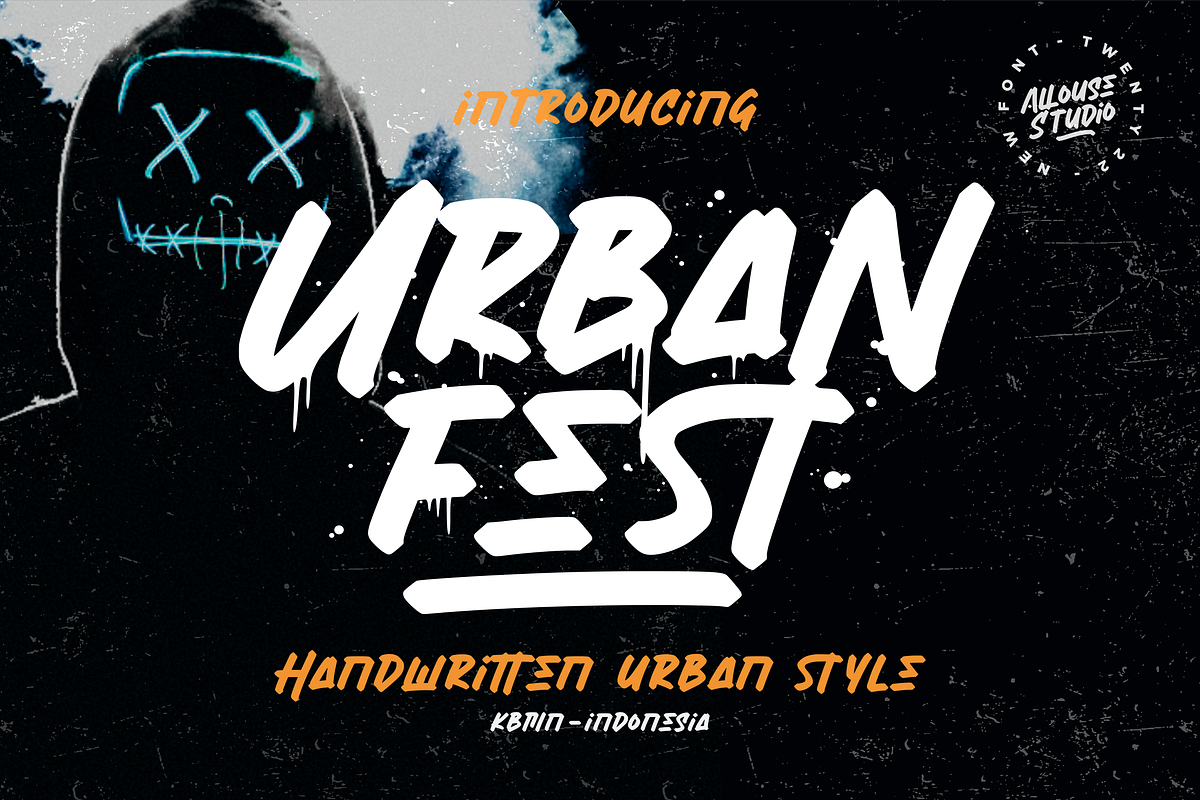
Urban Fest A Handwritten Urban Style Free Download
Urban Fest A Handwritten Urban Style Free Download is a bold, energetic typeface that captures the raw spirit of street culture and artistic self-expression. With its handcrafted strokes and edgy personality, this font is perfect for posters, music covers, streetwear branding, and eye-catching social media graphics. It brings a graffiti-inspired vibe that resonates with urban creatives and modern design enthusiasts alike. The irregular lines and spontaneous flair make your text look dynamic and full of life. Whether you're creating a brand with attitude or designing a bold campaign, Urban Fest A Handwritten Urban Style Free Download lets you test its urban aesthetic before committing to a full license. This font isn’t just letters—it’s an attitude, a rhythm, and a voice from the street. Add a handwritten edge to your work that demands attention and stands out from the crowd.